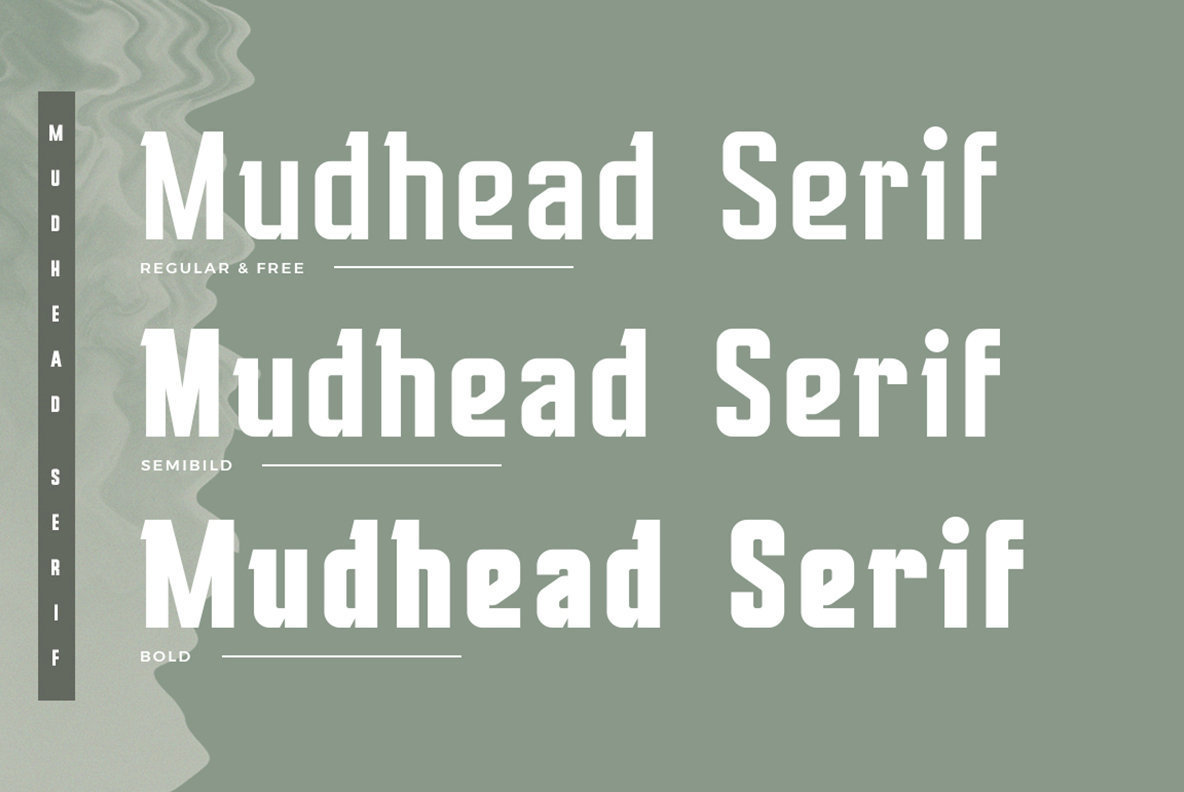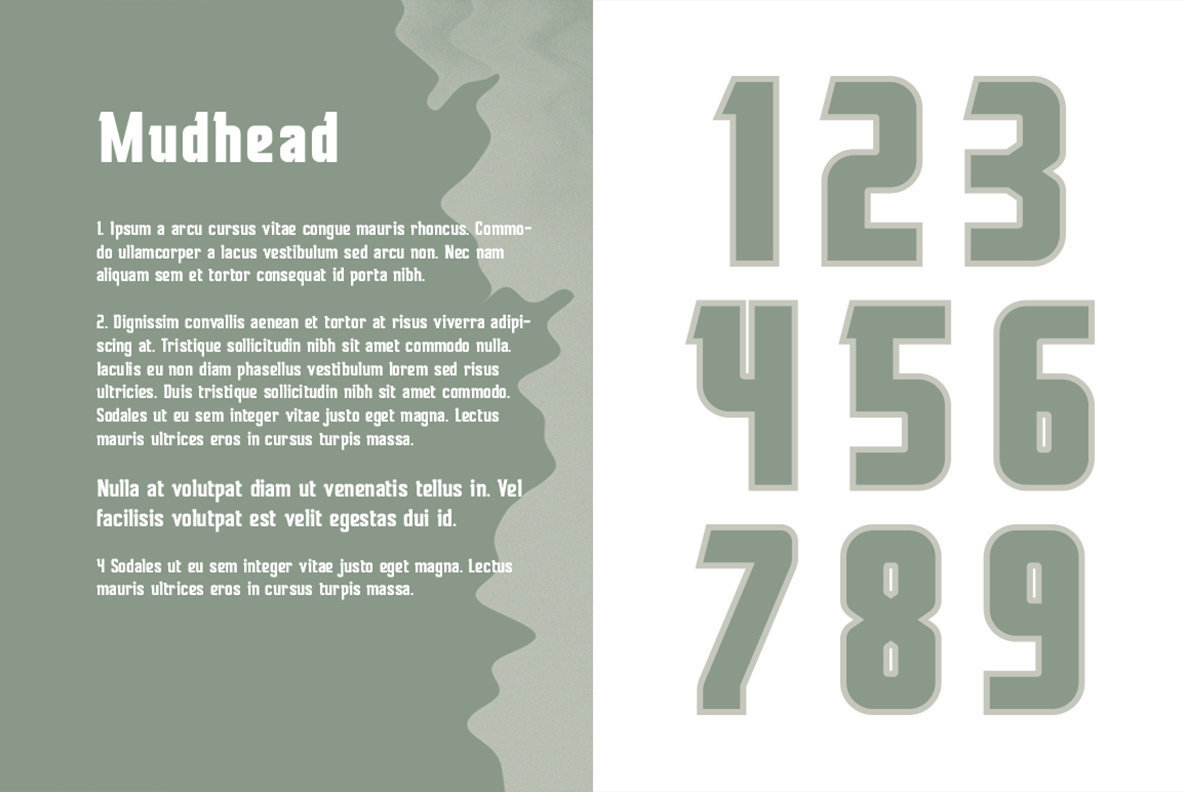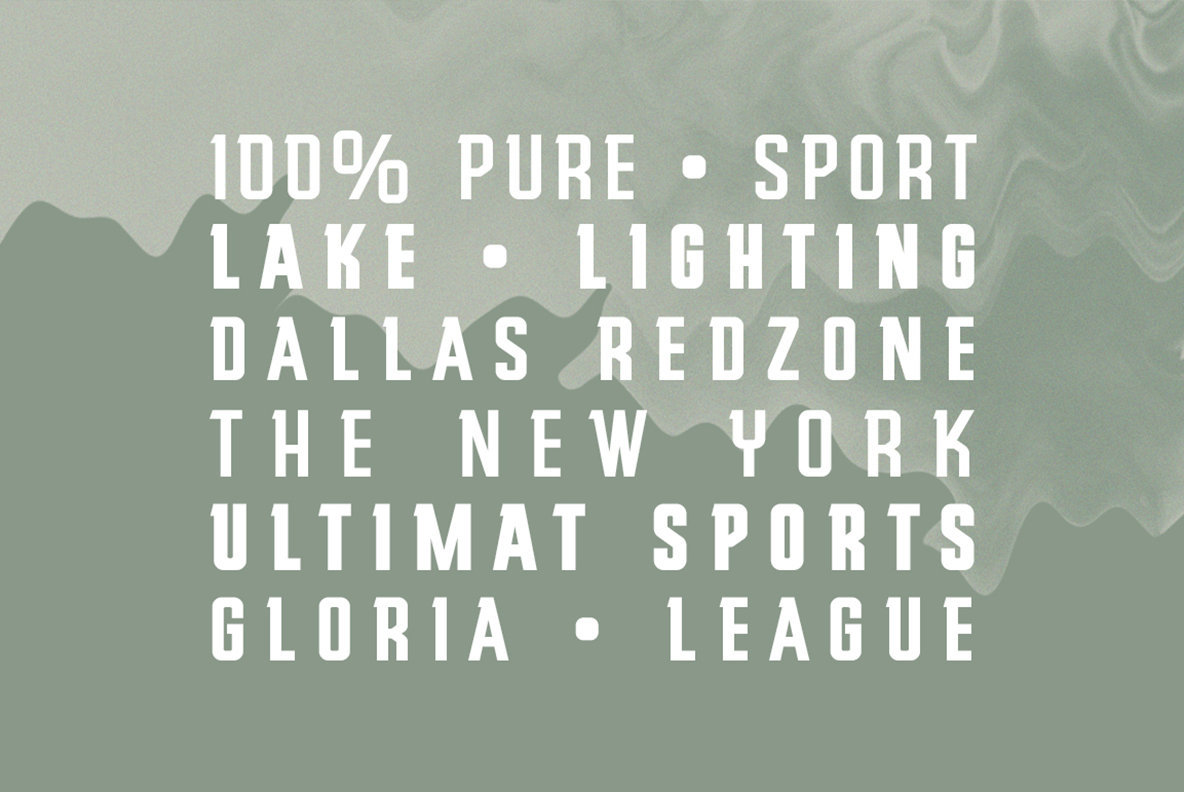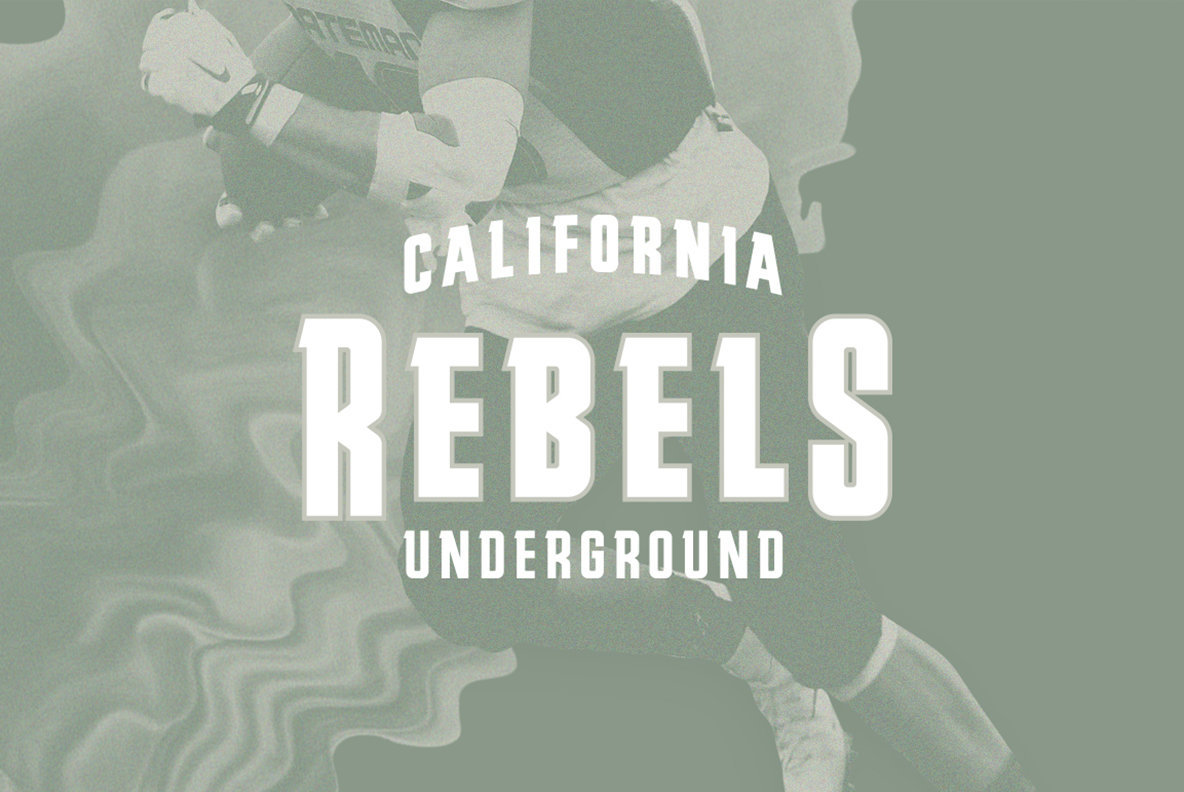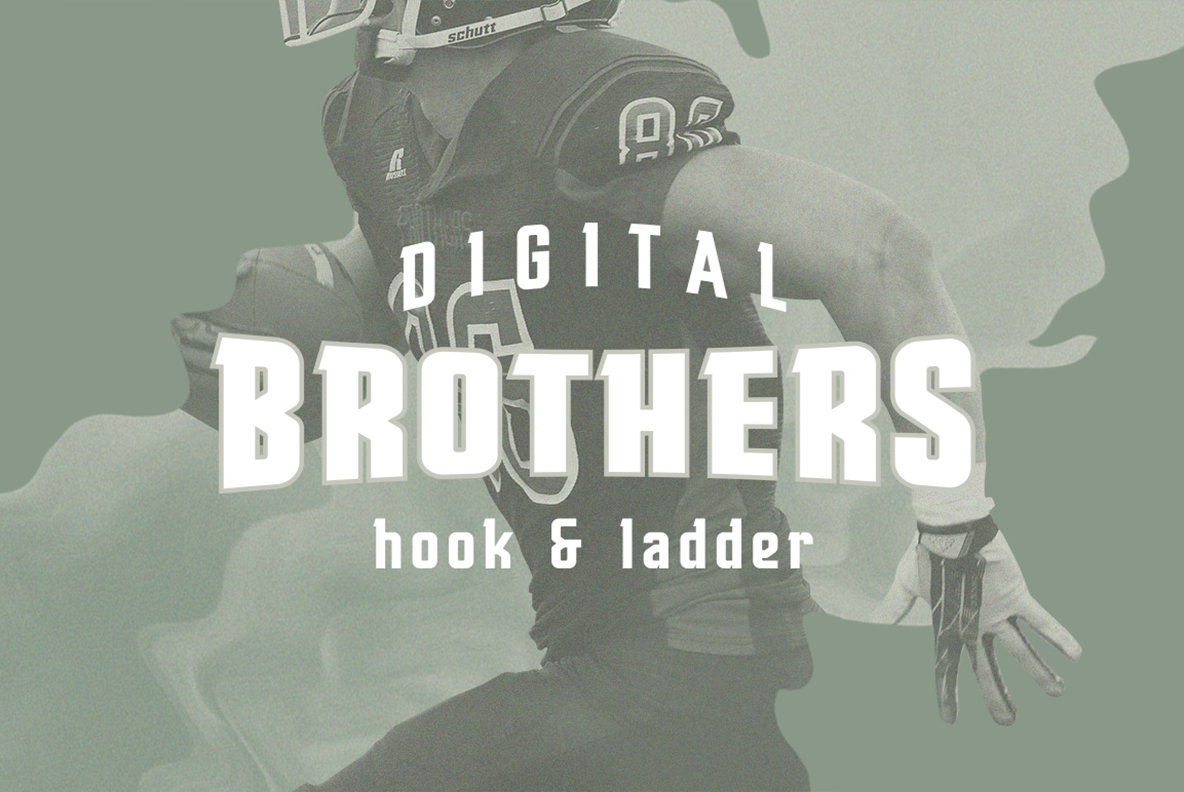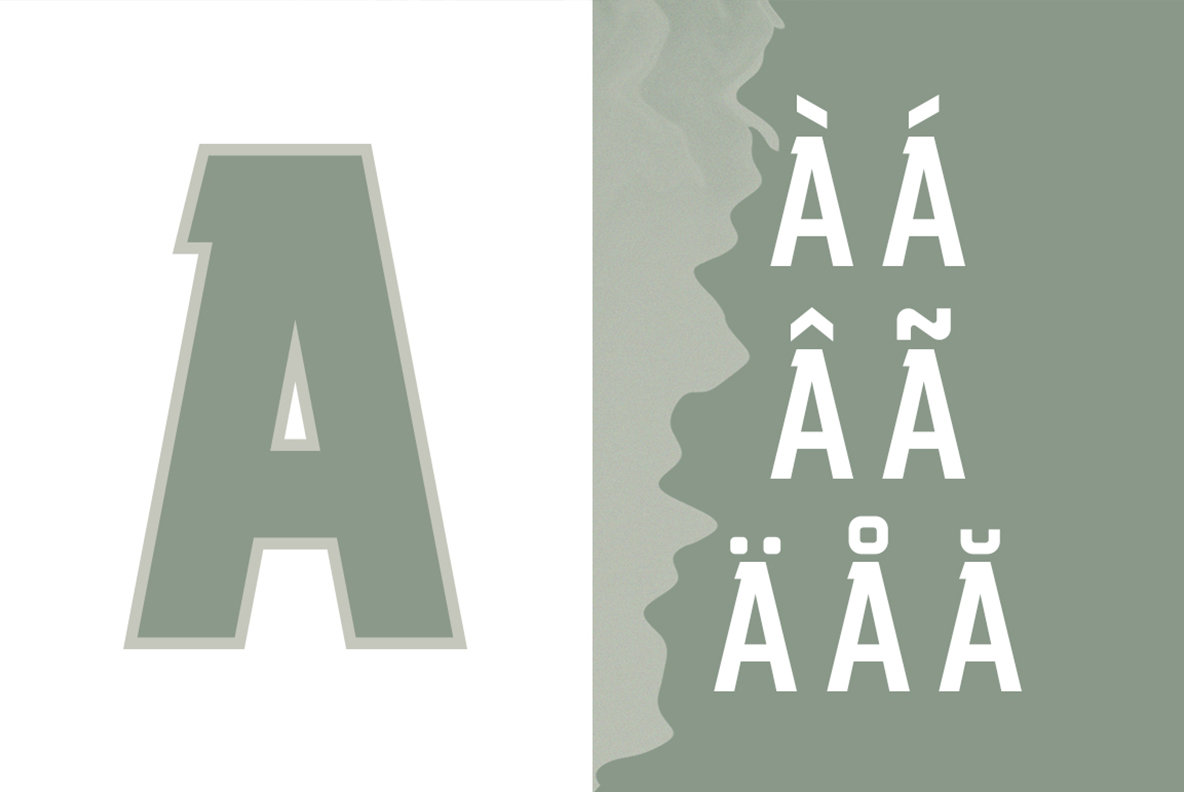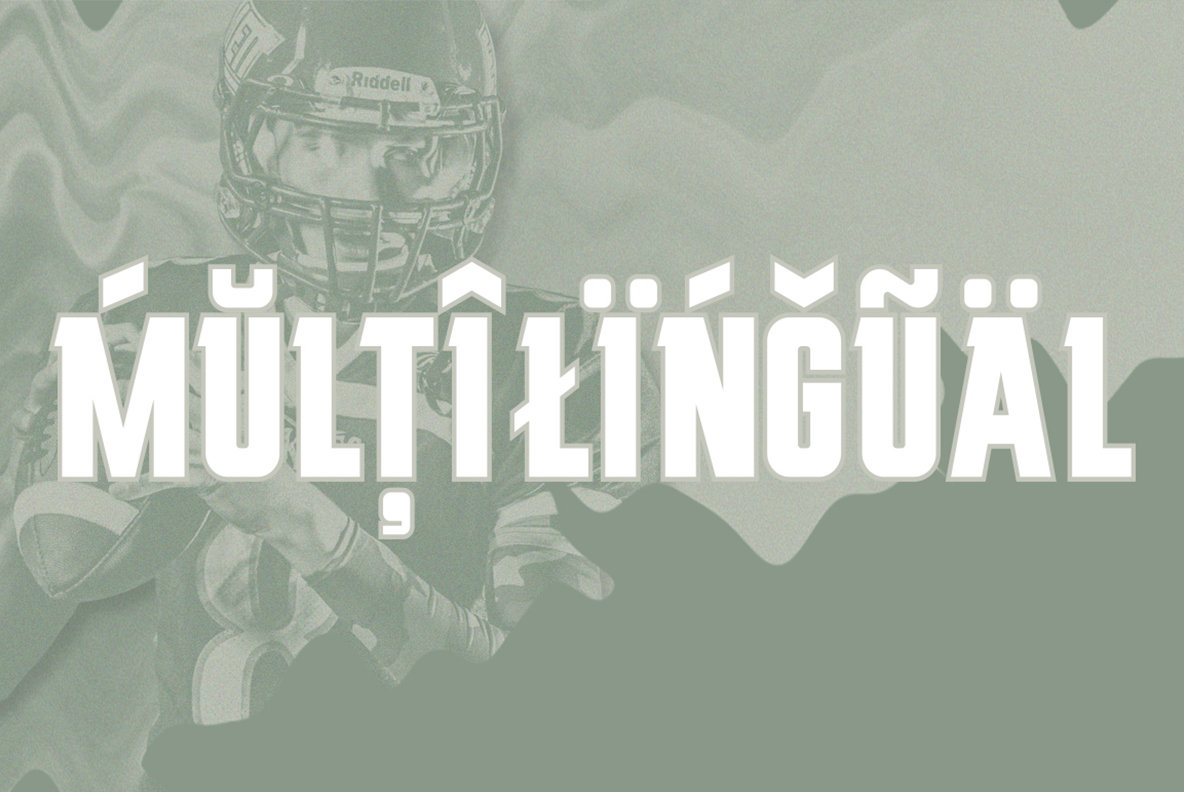
Mudhead Serif Font
Mudhead is an industrial, condensed and vintage sans serif font. It has 252 glyphs and supports multiple foreign languages. Is perfect for vintage logo designs, headers, small and block text. It contains an uppercase and lowercase alphabet with numbers and symbols.